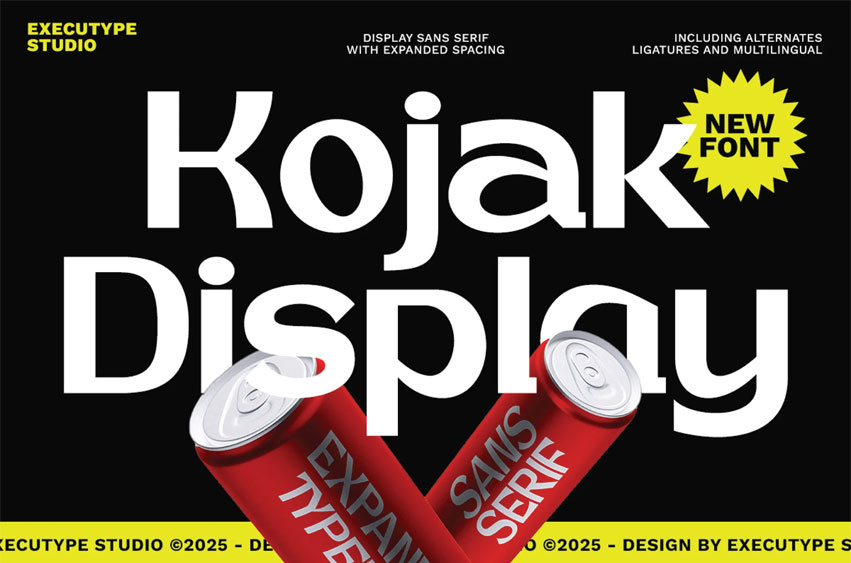
Kojak Display Font
Kojak Display Font is a bold and modern sans-serif typeface designed with expanded spacing for maximum impact. Built to capture attention, Kojak Display delivers clean lines and a contemporary aesthetic, making it ideal for high-visibility design needs such as headlines, branding, advertising, and packaging.
With a unique balance between geometric precision and visual strength, Kojak Display brings a fresh and assertive voice to your creative work. The font includes alternate characters, ligatures, and multilingual support, providing the versatility you need to elevate your design projects.
• Display Sans Serif with expanded spacing
• Clean, modern, and powerful appearance
• Includes alternates, ligatures, and multilingual support
• Perfect for: Posters, Logos, Editorial Headlines, Packaging, Web Design, and more!!!
Whether you’re designing for a trendy brand or a bold campaign, Kojak Display is your go-to typeface for commanding attention with style.